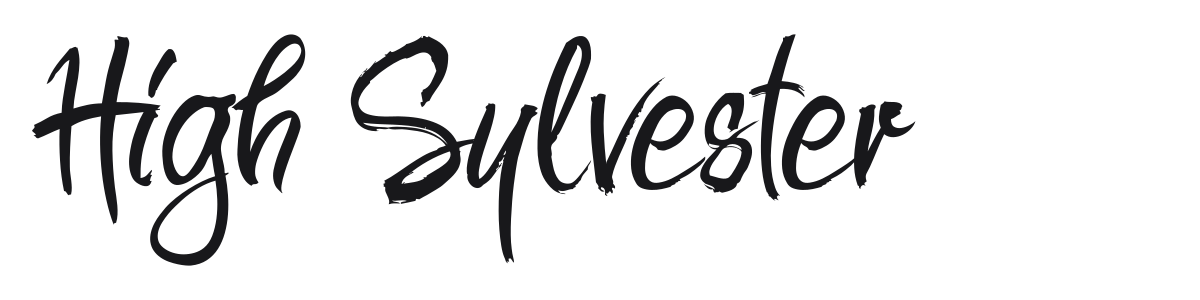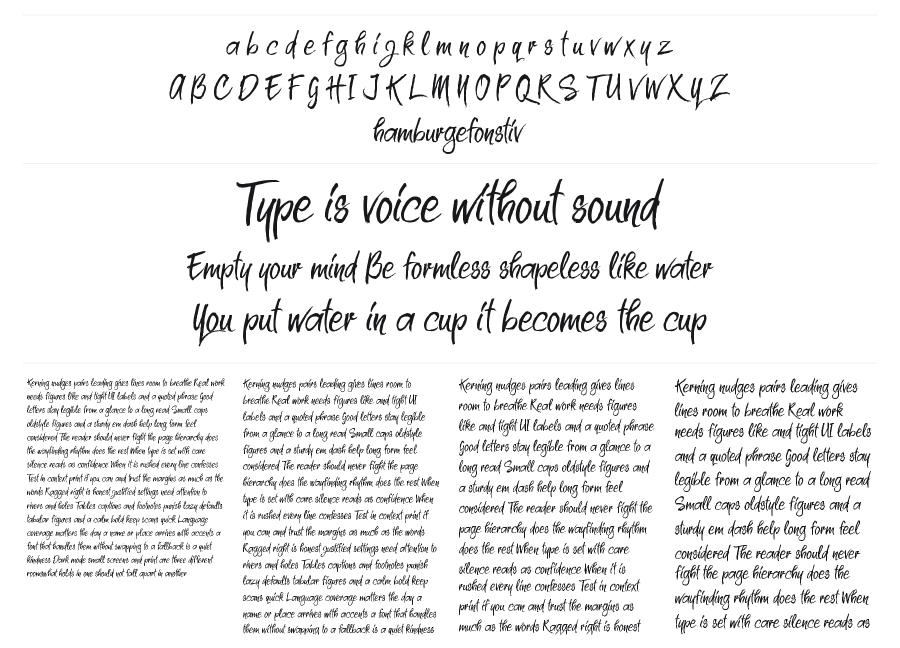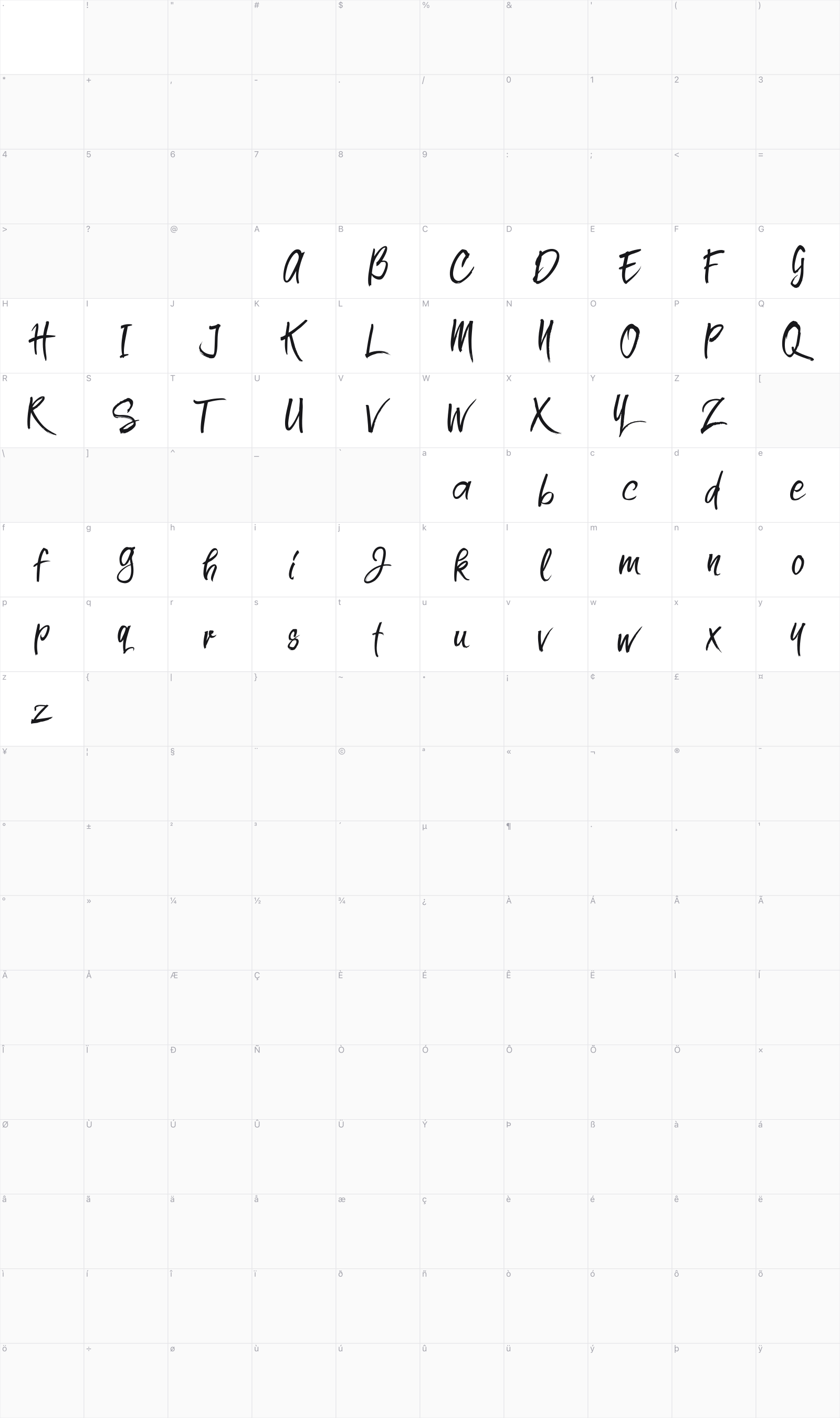
High Sylvester
High Sylvester is a casual brush script with the raw energy of hand-lettering done with a wide brush. Thick downstrokes and wispy hairlines create strong contrast, while natural ink texture along the edges keeps it feeling genuinely handmade. It reads best large, where that brushwork detail can breathe.